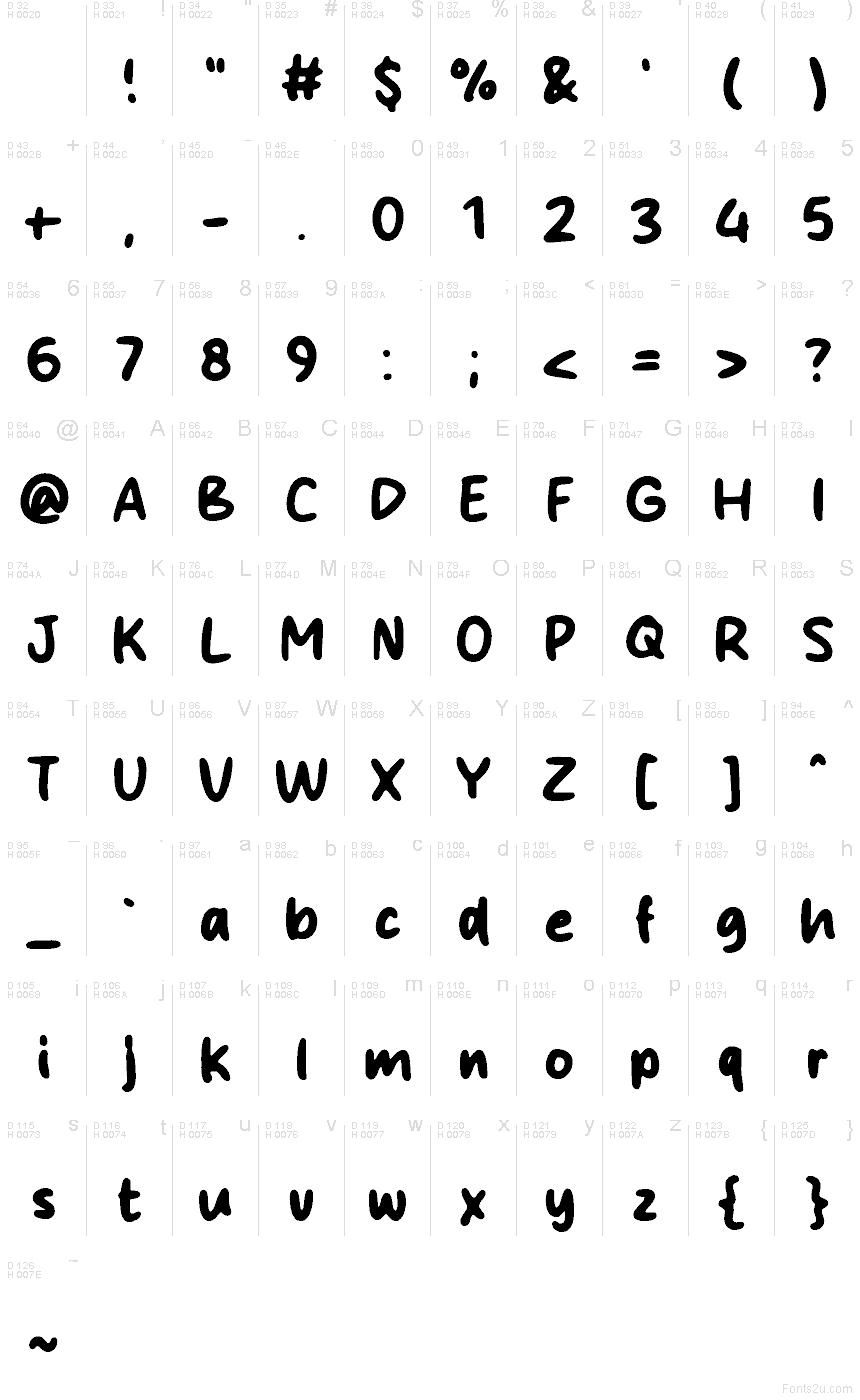
Fruity Sugar
Fruity Sugar font by Origin Type is a free handwritten font with bubbly, ink-thick strokes that feel like marker lettering on a café chalkboard—soft, friendly, and a little mischievous. Its rounded shapes and snug spacing keep words compact and readable, while the playful rhythm adds instant sweetness without turning messy.
Using Fruity Sugar, you’ll get lively results on kids’ packaging, snack and beverage labels, sticker designs, birthday invites, classroom posters, YouTube thumbnails, and cheerful social ads. Set it a touch larger so the chunky curves can breathe, and pair it with a clean sans typeface for ingredients, details, or longer copy—this free font does the charm, the sans does the talking.